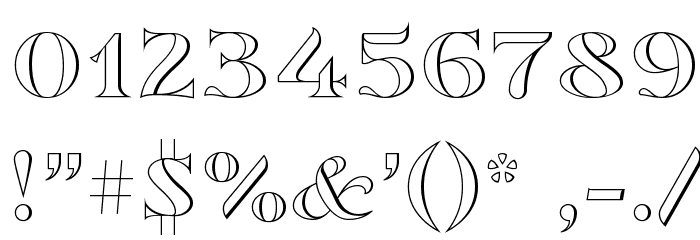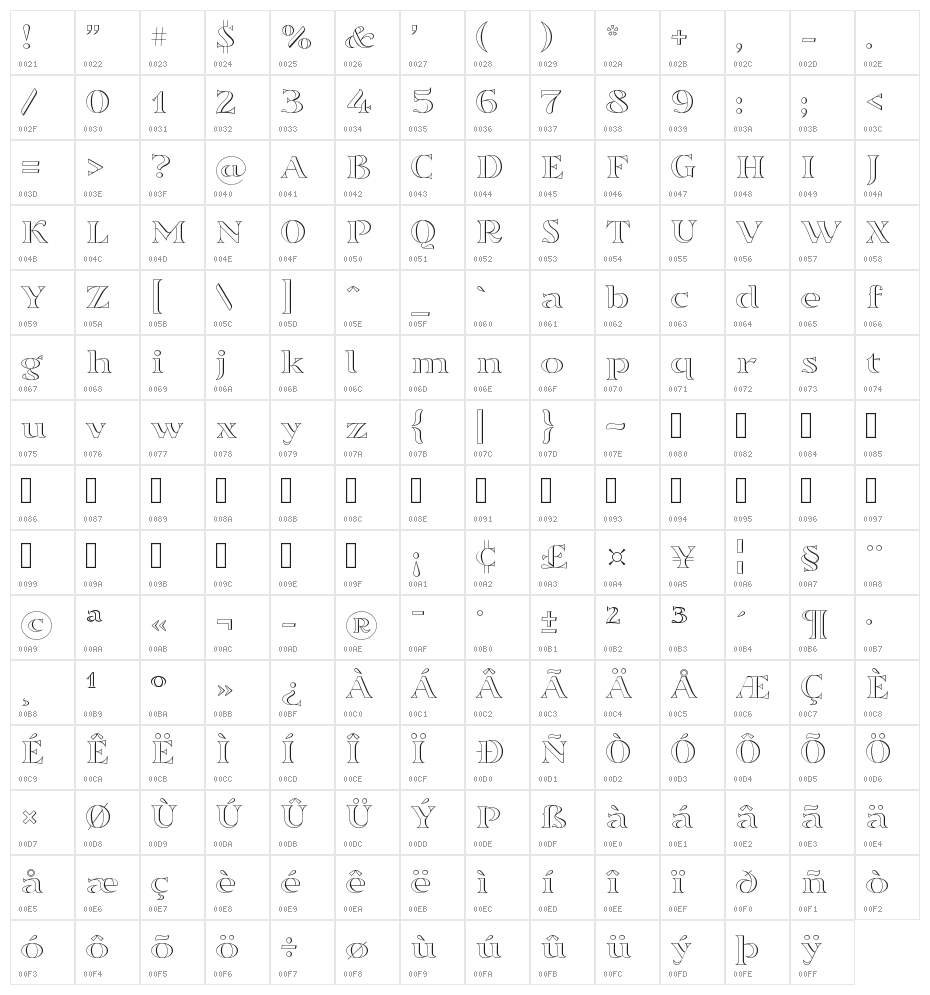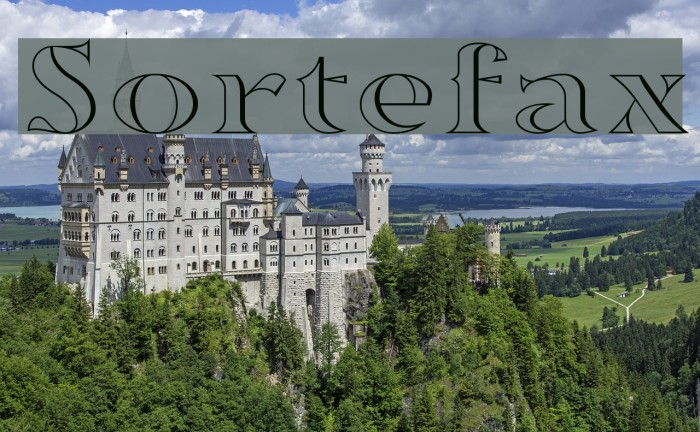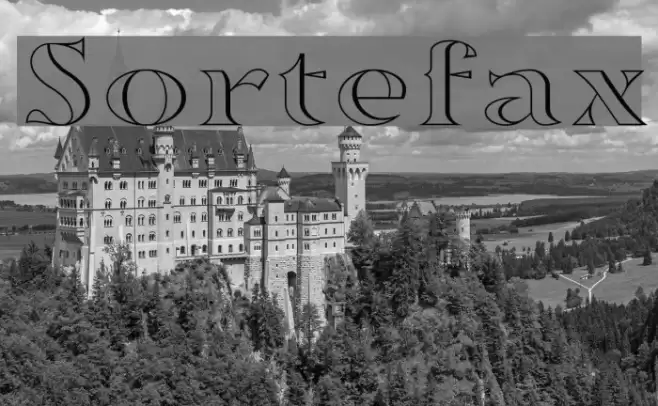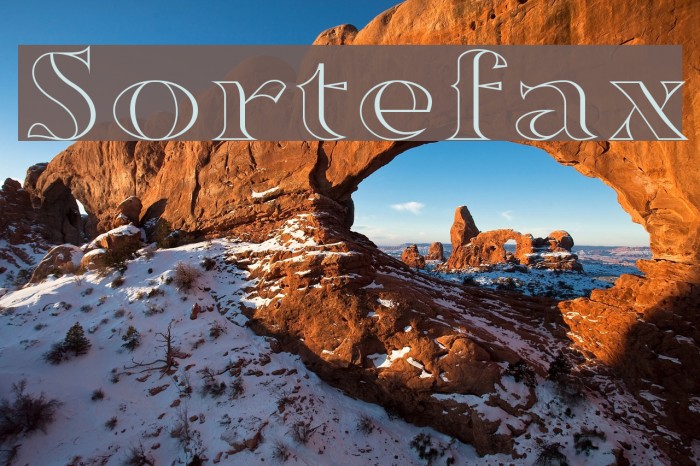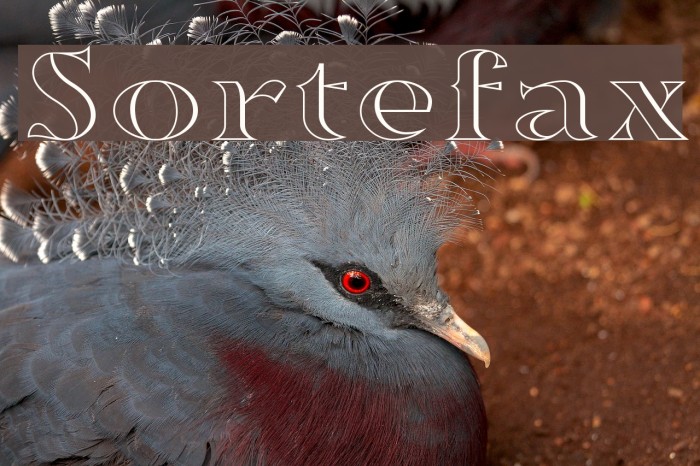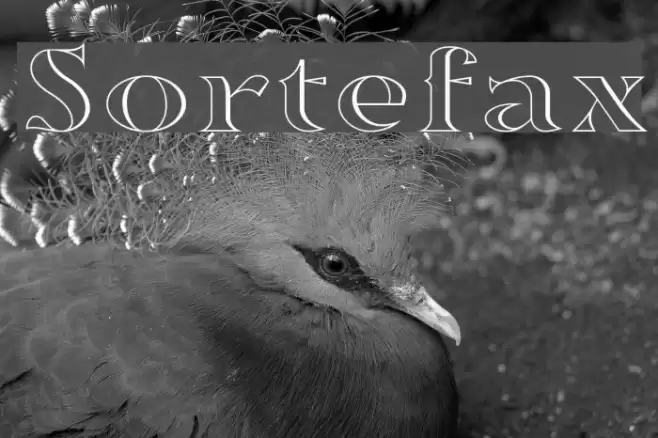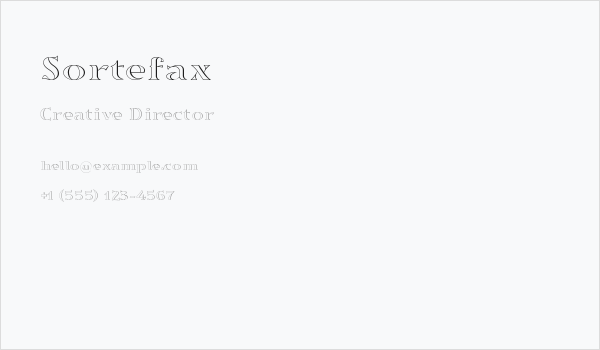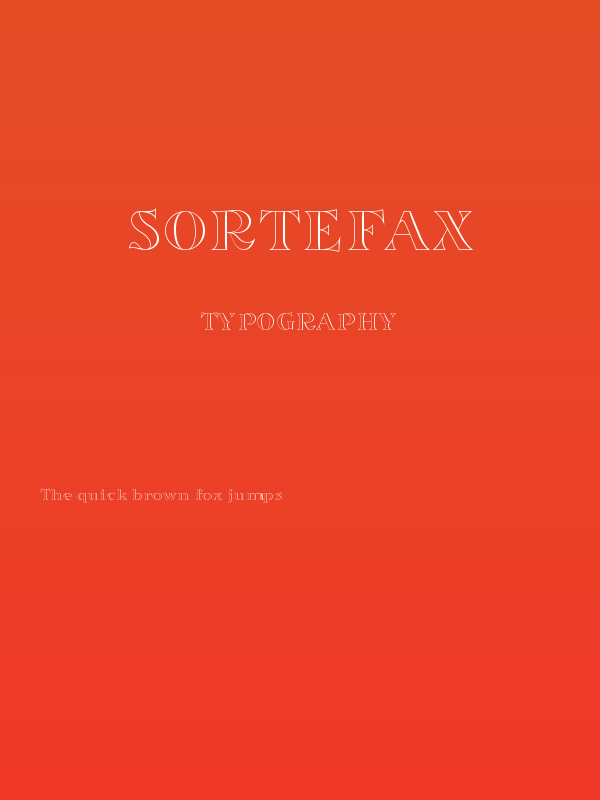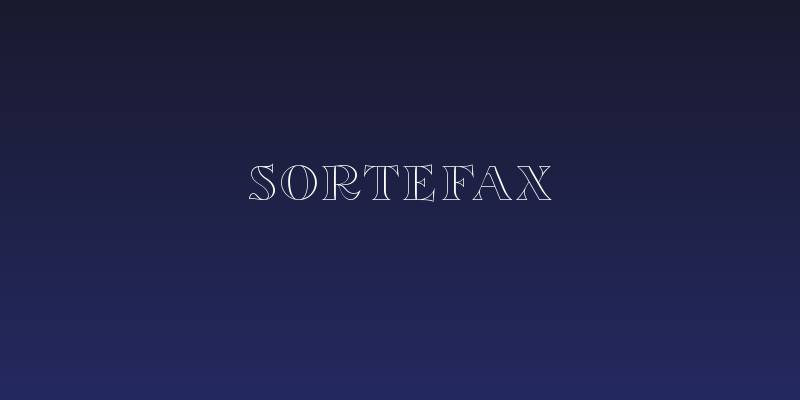
Sortefax Font
Sortefax Description
This font features a distinctive and elegant design with a modern twist. The characters are outlined with a double line, giving them a unique, dimensional appearance. The uppercase letters are bold and commanding, while the lowercase letters maintain a consistent style with slightly softer curves. The numerals are designed to match the alphabet's aesthetic, ensuring a cohesive look across all characters. Special characters are included, maintaining the same stylistic elements, making this font versatile for various uses. The overall design is both decorative and functional, suitable for projects that require a touch of sophistication and creativity.